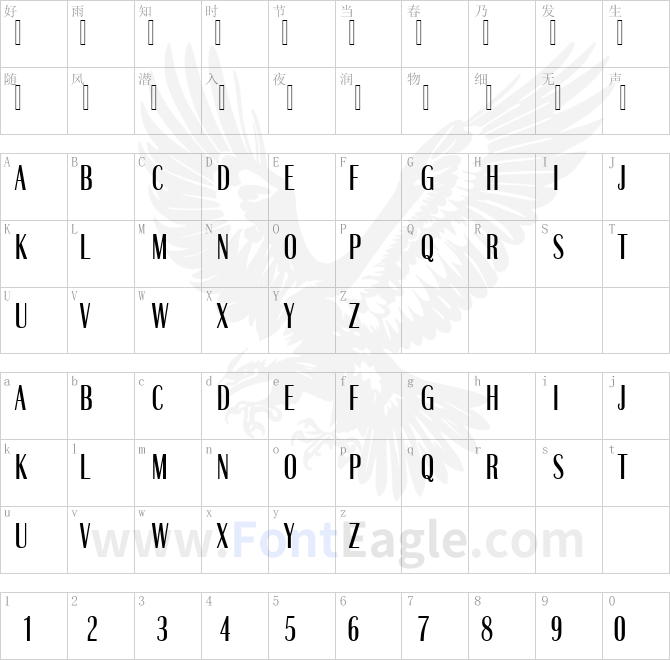
Britannic Becker Compress Med Regular.ttf Font Image
- Font name:Britannic Becker Compress Med
- Font Full Name:Britannic_Becker_Compress_Med
Britannic Becker Compress Med Regular.ttf Characters Sample